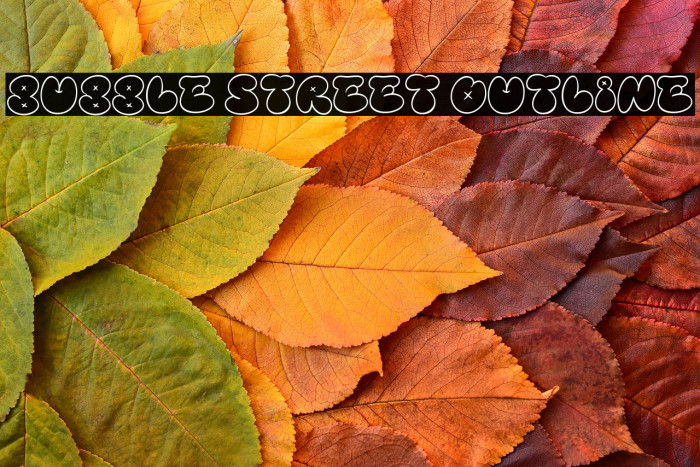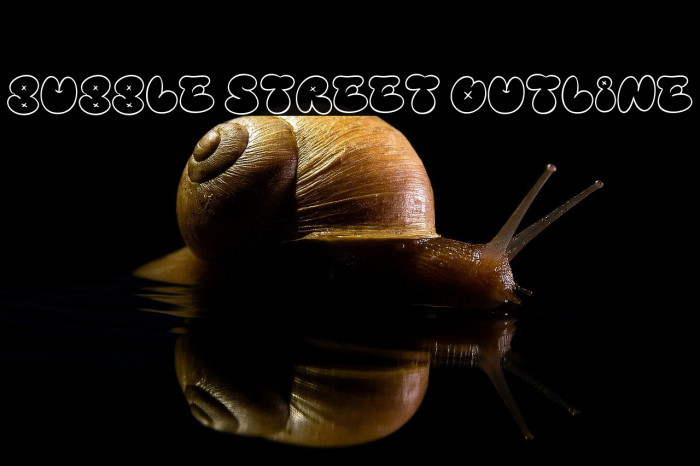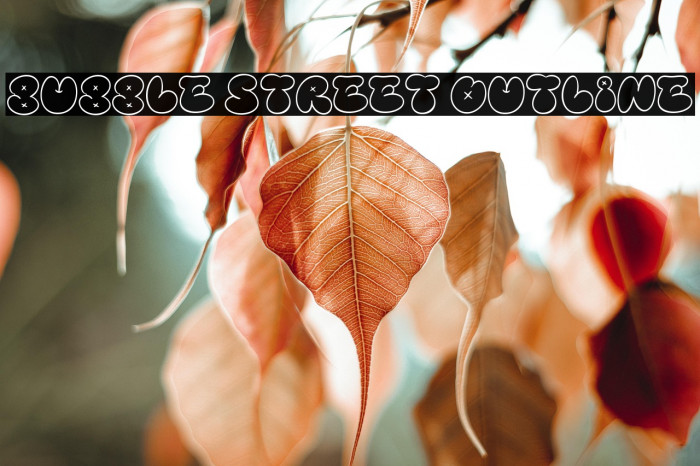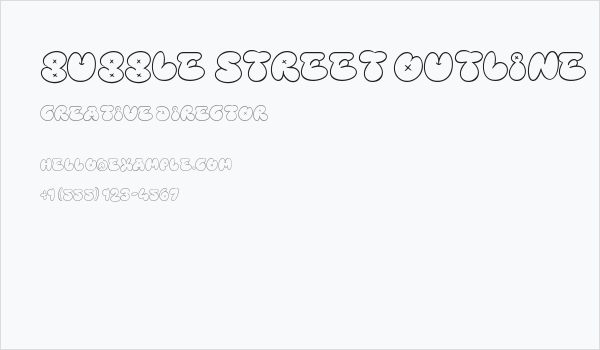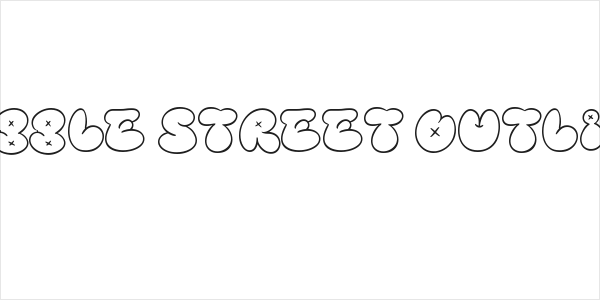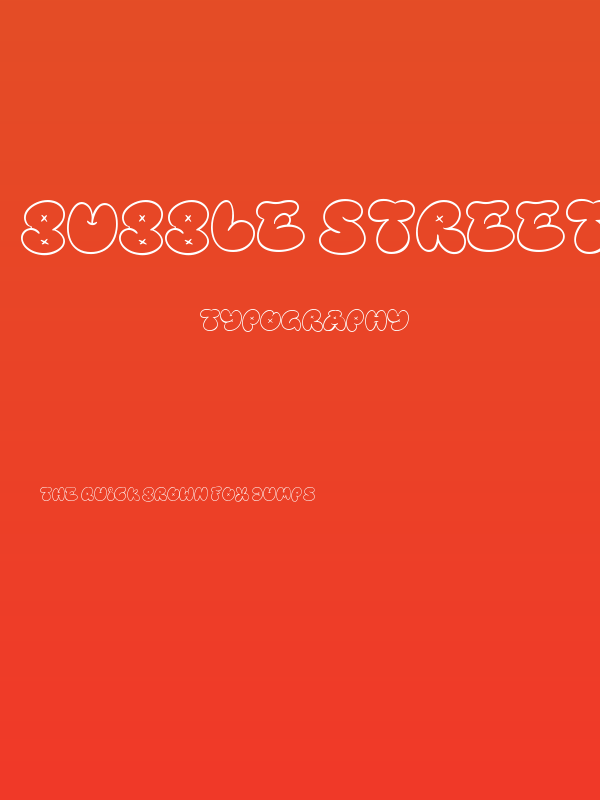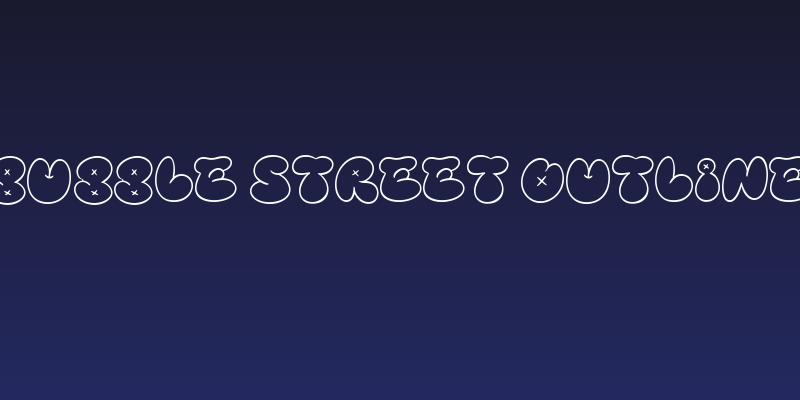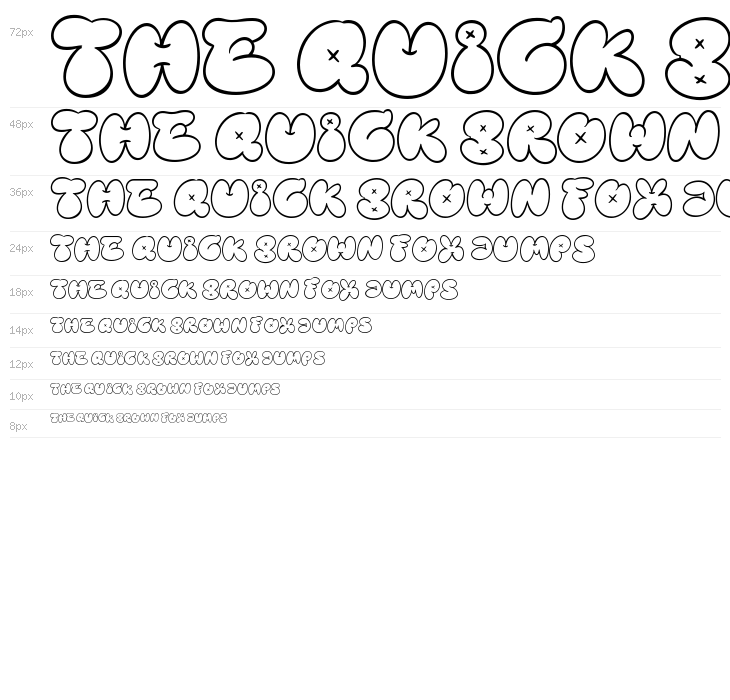
Bubble Street Outline Font
Bubble Street Outline Description
This playful and whimsical font features an outline style with a bubble-like appearance. Each character is designed with rounded, inflated forms that give a sense of fun and lightheartedness. The letters are outlined, creating a hollow effect that adds to the airy and buoyant feel. The font includes both uppercase and lowercase letters, numbers, and a variety of special characters. Its unique style is characterized by the presence of small 'x' marks within the loops of the letters, adding a quirky and distinctive touch. The overall design is bold and eye-catching, making it suitable for creative and informal projects.
| Overall Style | Playful, Whimsical, Fun |
| Proposed Projects | Ideal for children's books, party invitations, playful branding, and creative posters. |